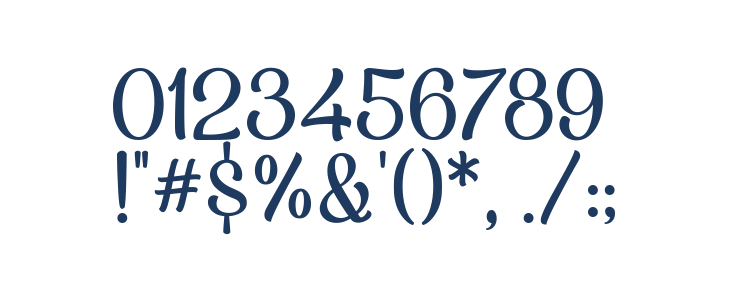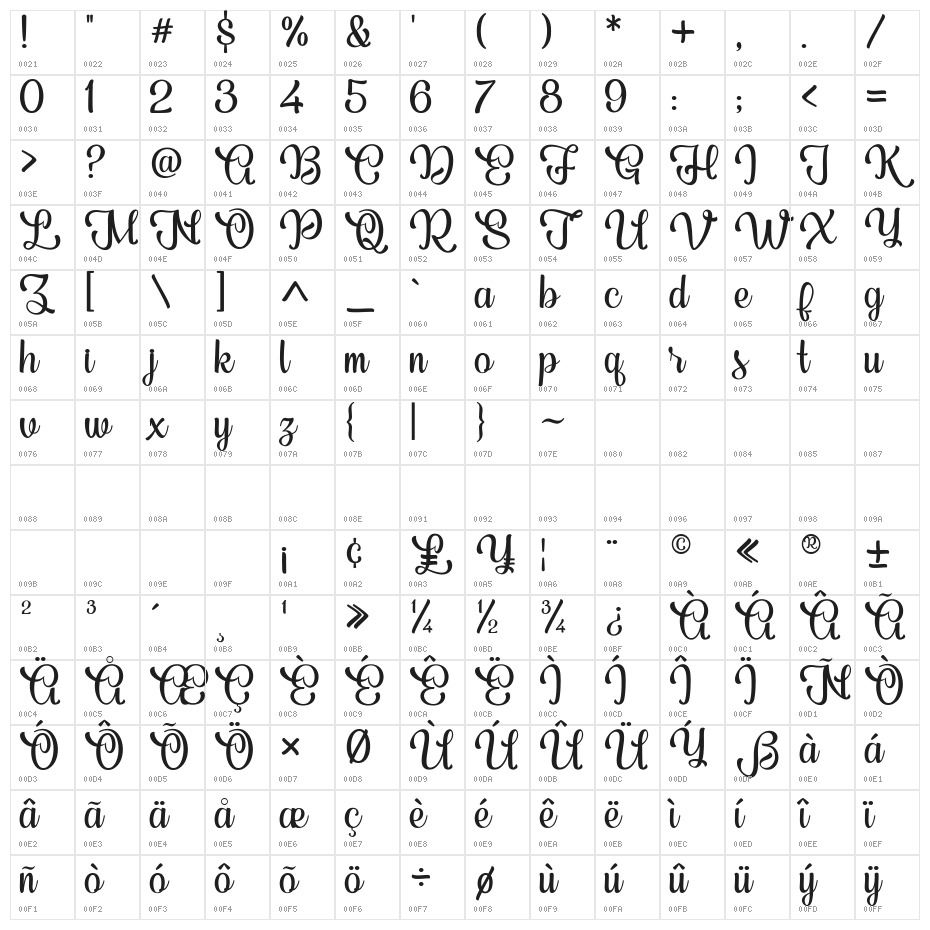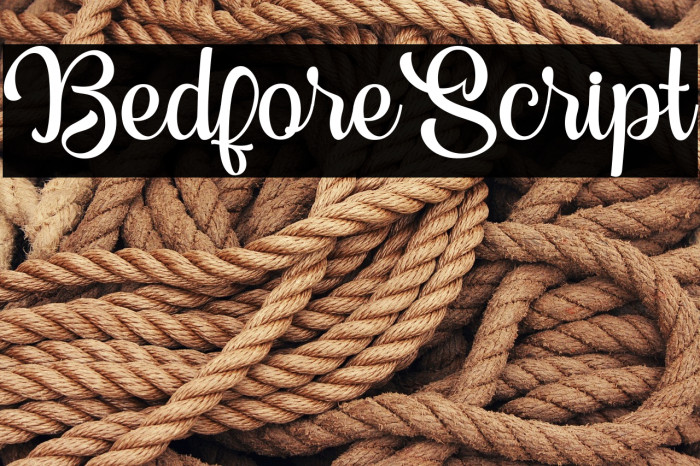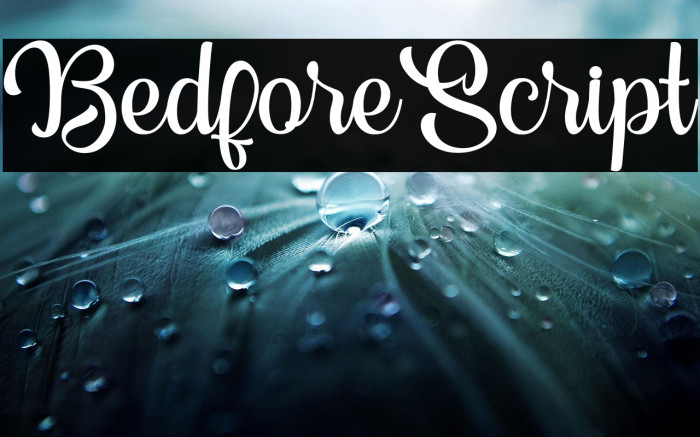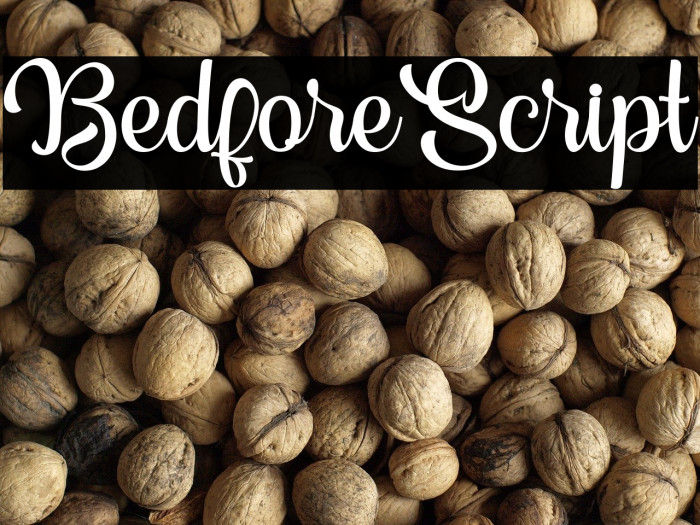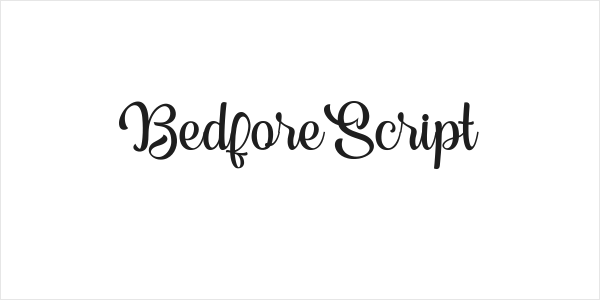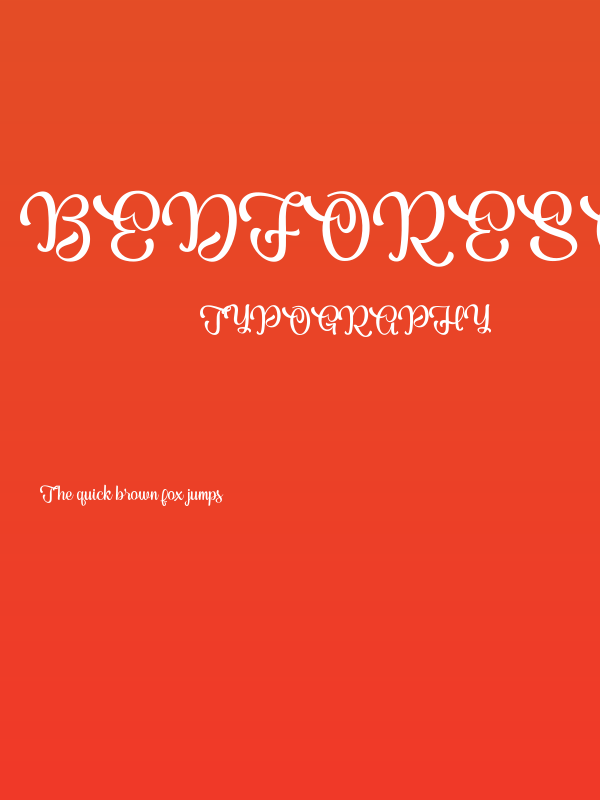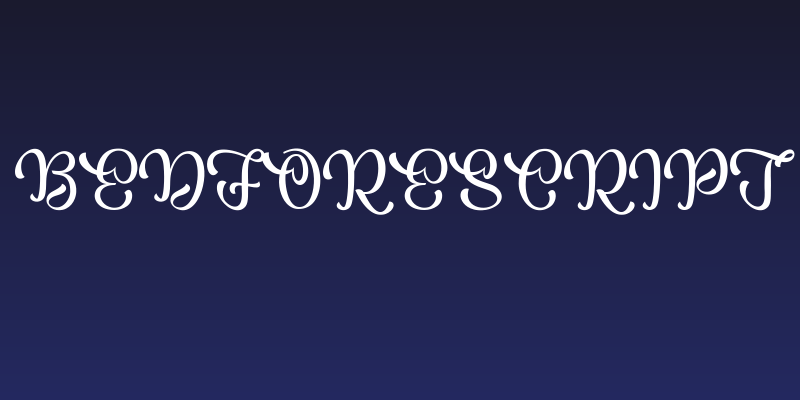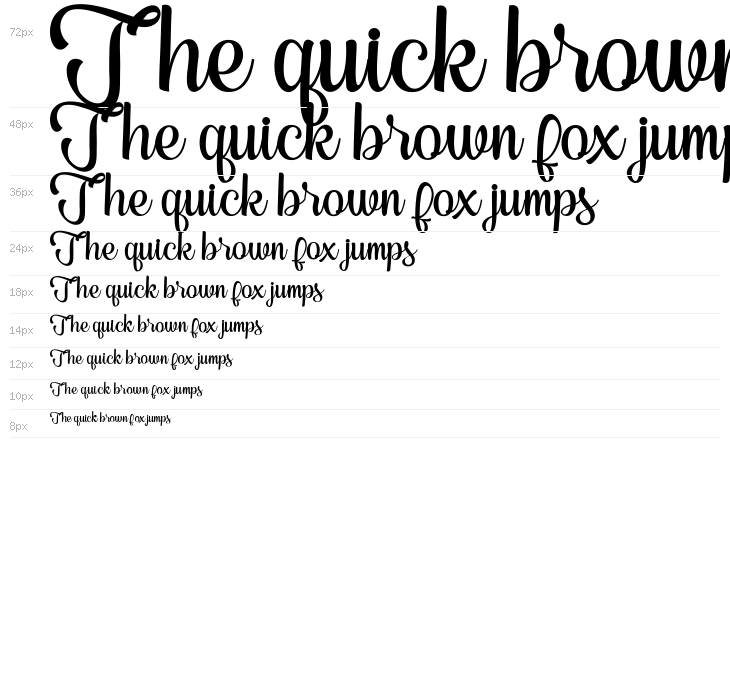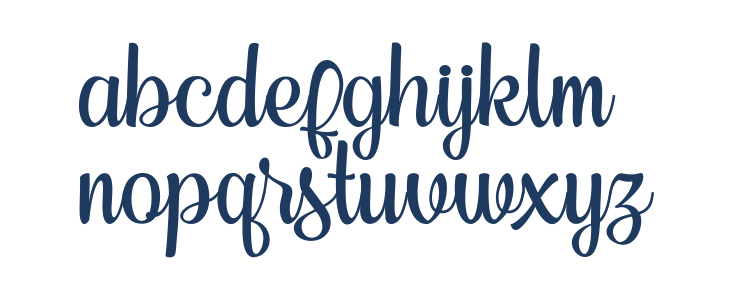
BedforeScript Font
BedforeScript Description
This font exudes a playful and elegant script style, characterized by its flowing, interconnected letters that mimic the fluidity of handwriting. The uppercase letters are ornate with loops and swirls, while the lowercase letters maintain a consistent rhythm and balance. The numerals are bold and rounded, complementing the overall aesthetic. Special characters are creatively integrated, maintaining the script's whimsical nature. This font is ideal for projects that require a touch of sophistication and charm, such as invitations, greeting cards, and branding materials.
| Use Case | Logos, Headlines, Decorative text |
| Proposed Projects | Ideal for invitations, greeting cards, branding materials, and decorative signage. |